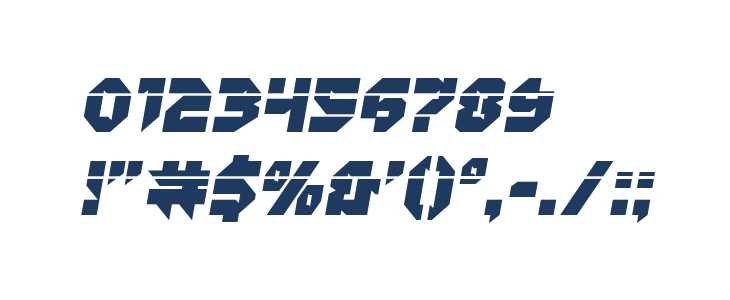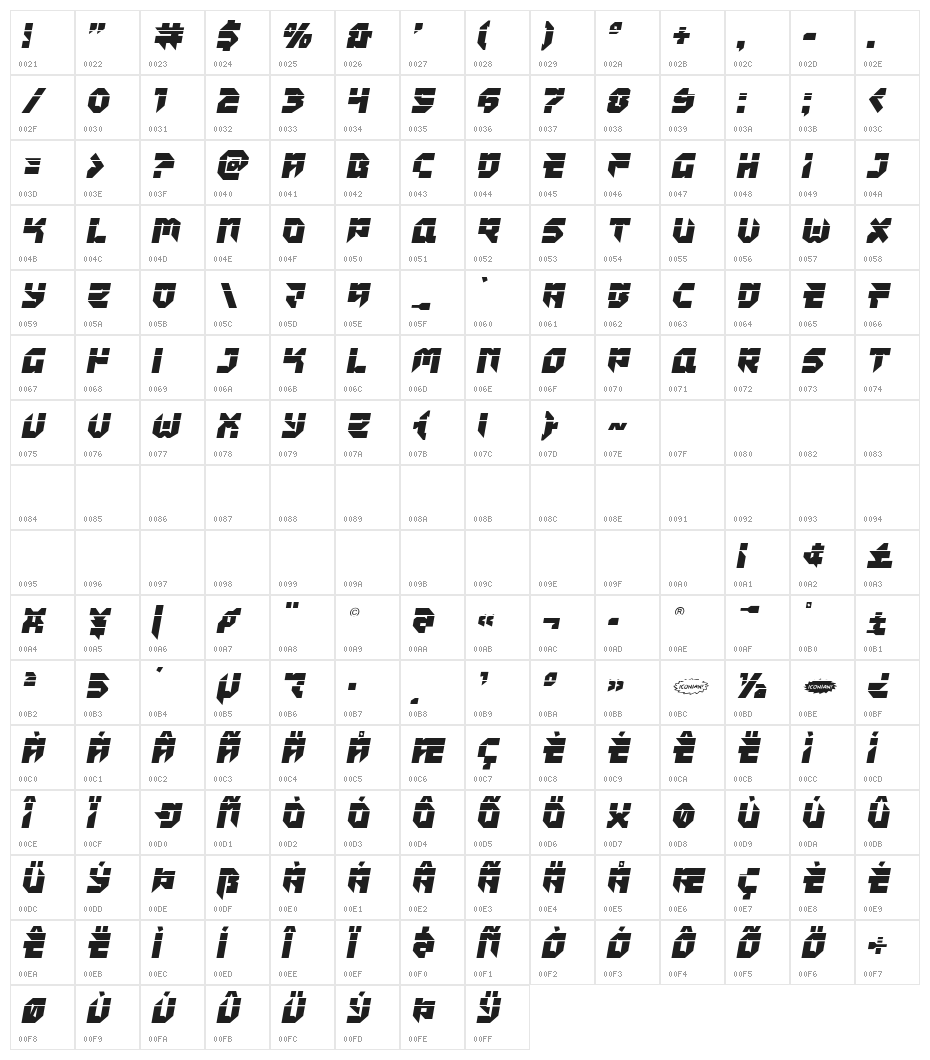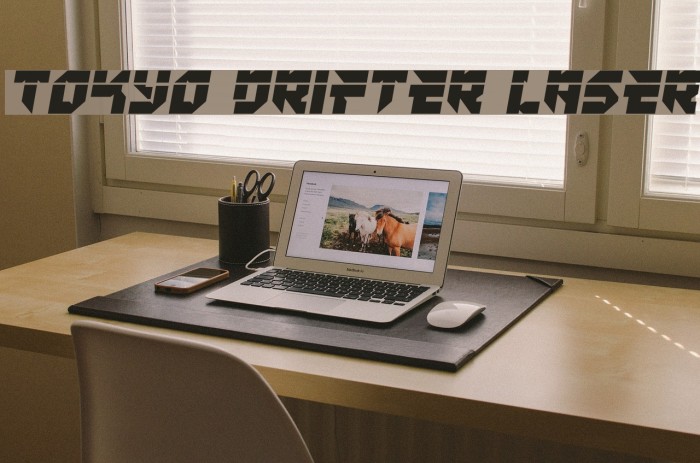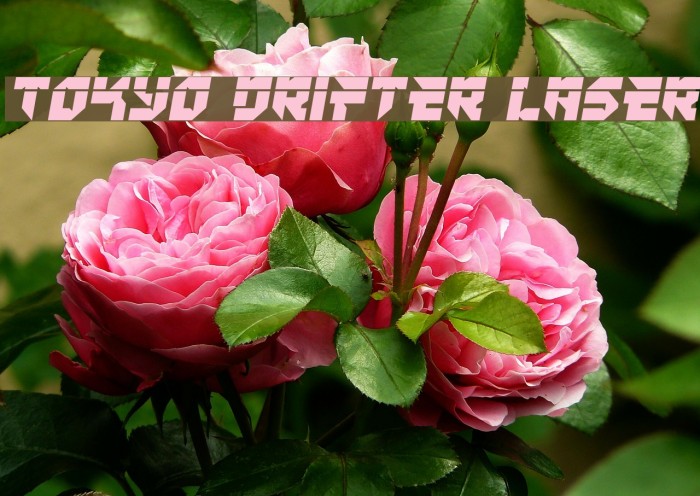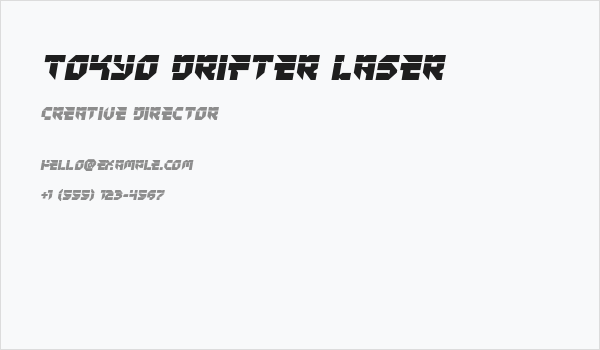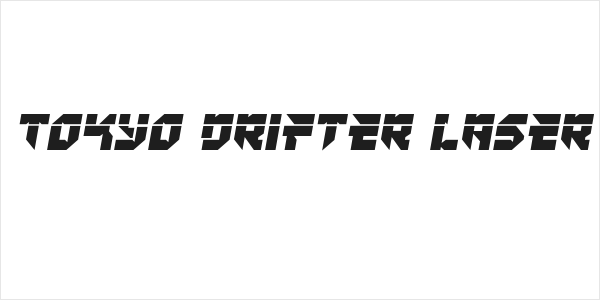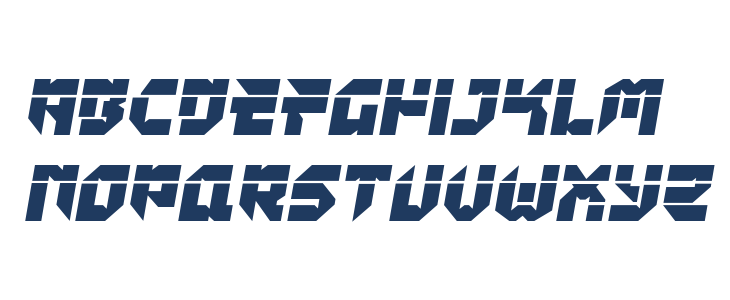
Tokyo Drifter Laser Font
Tokyo Drifter Laser Description
This font features a bold, futuristic design with angular and geometric shapes that create a dynamic and edgy appearance. The characters are constructed with sharp edges and a blocky style, giving it a distinct, modern look. The uppercase and lowercase letters maintain a consistent style, with the lowercase being slightly smaller but equally bold. The numbers and special characters follow the same design principles, ensuring uniformity across the font. The overall aesthetic is reminiscent of digital or sci-fi themes, making it ideal for projects that require a strong, impactful visual presence.
TOKYO-DRIFTER-LASER UPPERCASE
TOKYO-DRIFTER-LASER LOWERCASE
TOKYO-DRIFTER-LASER OTHER CHARS
| Proposed Projects | Ideal for sci-fi movie posters, video game titles, tech branding, and futuristic-themed designs. |